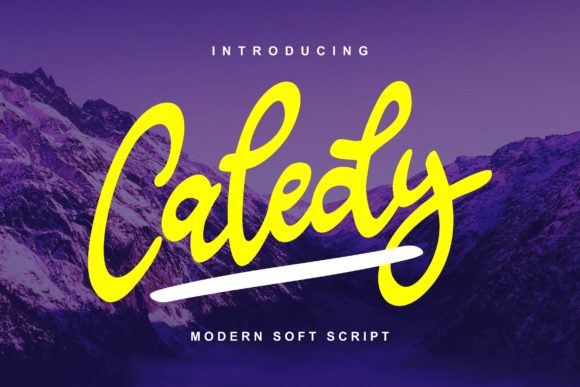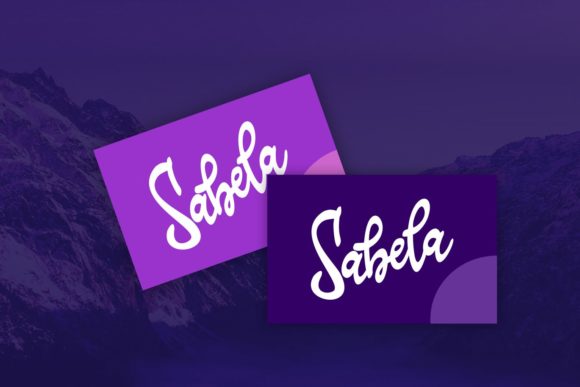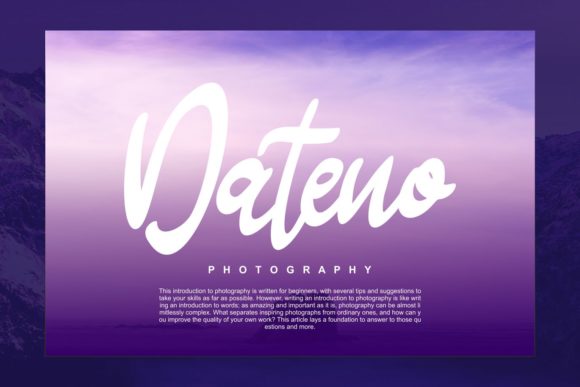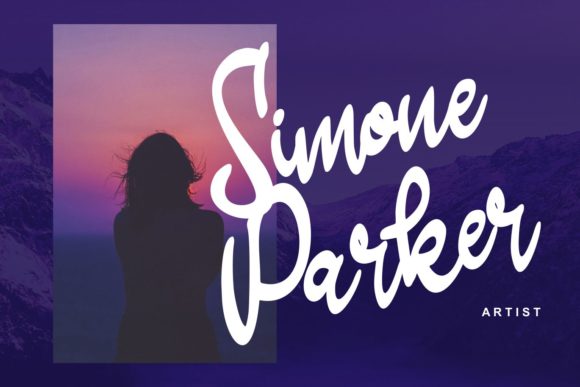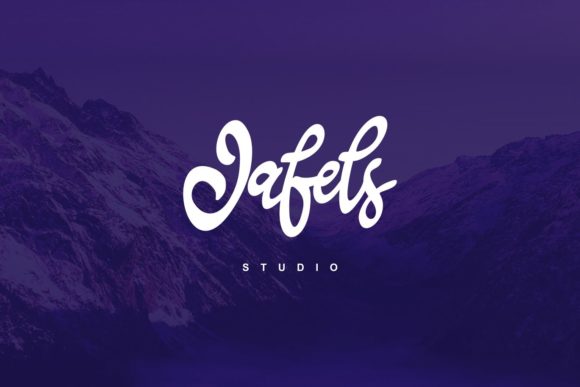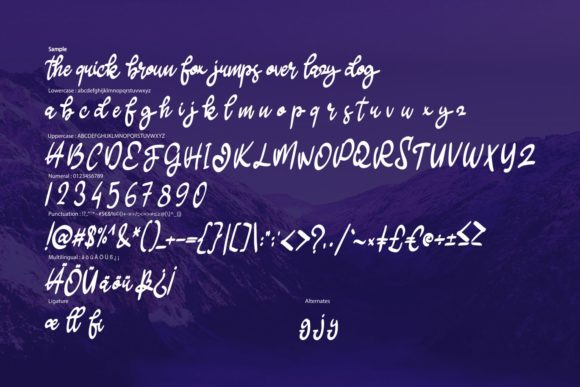
Caledy Font
About Caledy Font
Caledy pays homage to classic calligraphy and delivers a one-of-a-kind font experience. Fall in love with its modern charm!